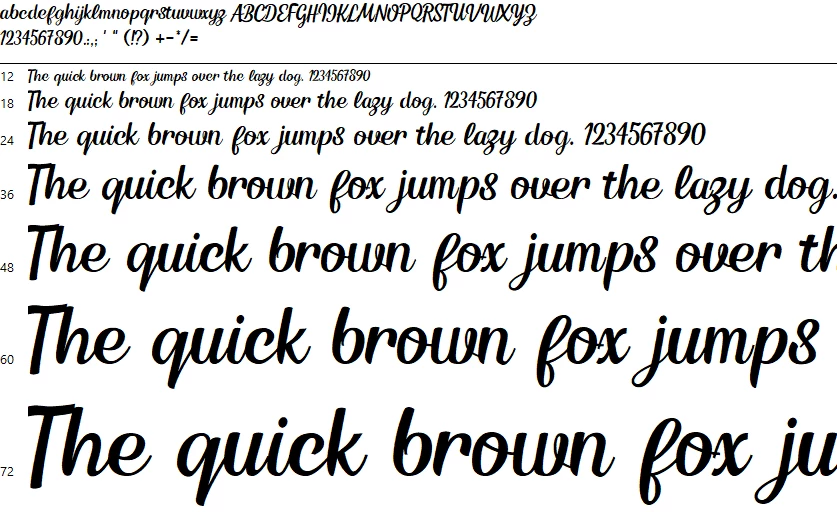
Kingsman Stylist Script Font-Download Free
The Kingsman Stylist Script Font is now available! The font Kingsman is available in two styles. There’s an alternate typeface included, as well as some ligatures. This font is kept elegant, readable, stylish, and appealing. The font has a filmy feel to it, which adds to the drama. The font can be used in any movie-related endeavor, from teasers to subtitles. This font will instantly elevate the aesthetic of any project.
The fonts are suitable for a variety of uses, including product logos, wedding card logos, clothing company logos, vintage design, and so on. The font is mostly suitable for use as a text in any film teaser or trailer. It can also be used as a thumbnail for any YouTube video.